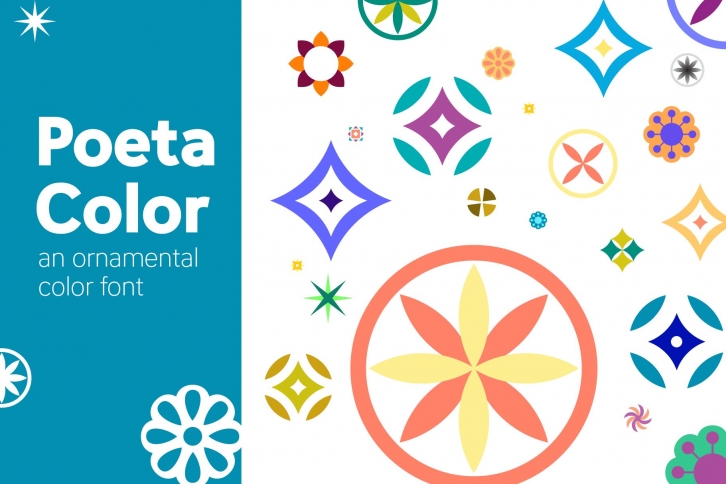
Poeta is a color ornamental font family of floral, sun, and nature motifs with diverse cultural origins. There are more than 50 dingbats in each font. This font began with sketches of patterns seen around Sicily; a land rich in poetry.
There are seven different fonts in this family. Each font has a different color or grey combination; solid (black), grey, gradient, primary, secondary, tertiary, and diverse. Each dingbat has individual colored parts. Those who desire to make a single color dingbat can do so with the solid font.
Designers can use Poeta to make unique line patterns, fields, borders, or other ornamentation. The dingbats are versatile enough for pure visual embellishment or for creating a festive seasonal or holiday mood. Play with layering and opacity to explore the additional color-mixing potential of this font.